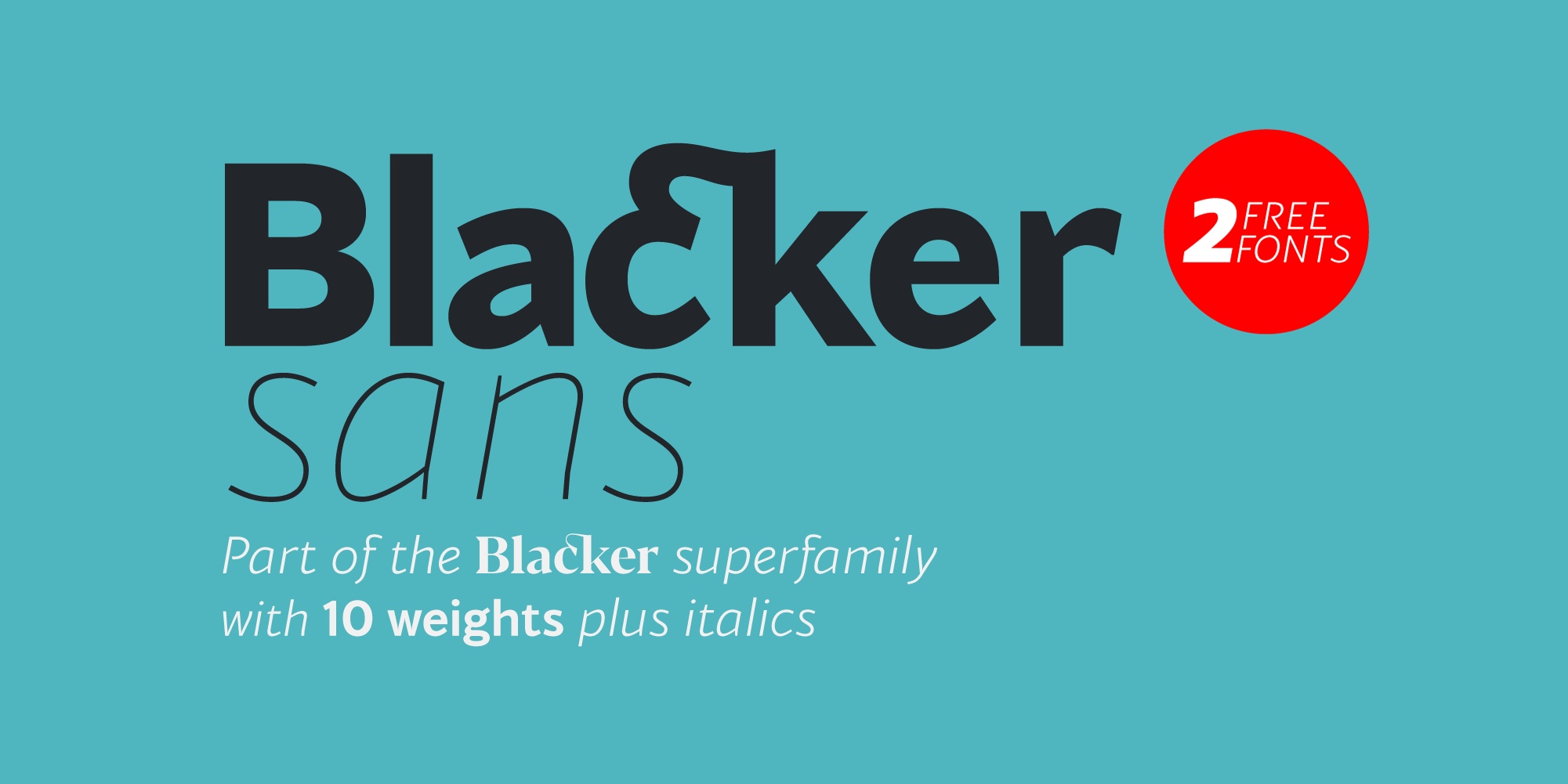
Blacker Sans Font
Blacker Sans Font is perfect for various design applications including bold contemporary branding, high-impact advertising campaigns, modern editorial headlines, striking poster designs, powerful corporate identities, dramatic digital interfaces, commanding architectural signage, influential fashion brand materials, authoritative tech company communications, and impactful statement designs. This commanding typeface excels in projects requiring maximum visual impact and contemporary authority that demands immediate attention and communicates uncompromising confidence in competitive markets.
What makes Blacker Sans Font so exciting is its masterful embodiment of contemporary boldness and typographic authority through letterforms that command attention without sacrificing sophistication or readability. The font features ultra-bold construction that cuts through visual noise, precisely calibrated proportions that maintain clarity at extreme weights, and distinctive character details that add personality while preserving professional credibility. Its distinctive commanding character and contemporary power make it perfect for brands seeking to communicate leadership, innovation, and the kind of confident authority that establishes market dominance and brand recognition.
Blacker Sans Font family includes comprehensive weight options from regular to ultra-black, along with matching italic styles that provide complete typographic flexibility for high-impact design systems. Each weight maintains the font's signature bold character while offering clear hierarchy options for complex contemporary communications. The family also features extended character sets, powerful ligatures, and authoritative symbols that ensure optimal performance across all modern media and international markets.
Whether you're developing contemporary brands, high-impact campaigns, or authoritative communications, Blacker Sans Font Free Download delivers the typographic power needed to establish immediate market presence and communicate uncompromising quality and leadership. This typeface transforms standard communications into commanding statements that reflect contemporary sophistication and competitive advantage. The font's bold appeal makes it particularly effective for technology companies, fashion brands, and innovative organizations targeting audiences who appreciate confident design and contemporary authority.
Blacker Sans Font stands out through its intelligent approach to extreme weight that achieves maximum impact without compromising functionality or contemporary elegance. Its precisely engineered boldness and authoritative proportions ensure exceptional performance across all contemporary applications, while its sophisticated character maintains credibility and professional appeal. From comprehensive brand systems to high-impact advertising, this font provides designers with tools to create communications that celebrate contemporary boldness and demonstrate mastery of powerful typography through commanding, confidence-inspiring letterforms that dominate any design landscape.